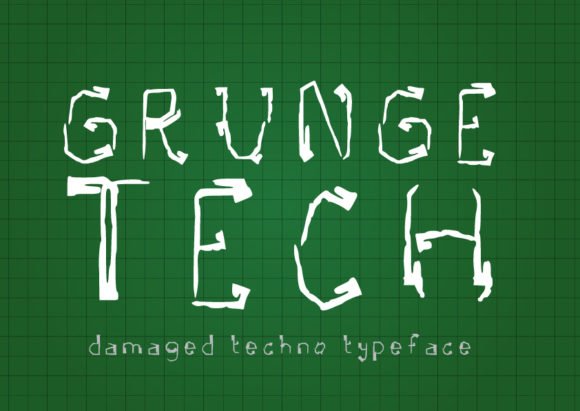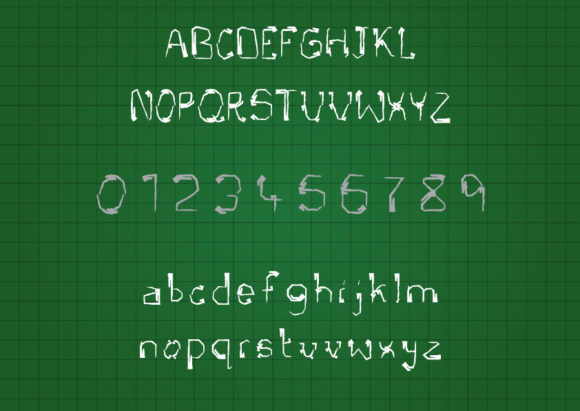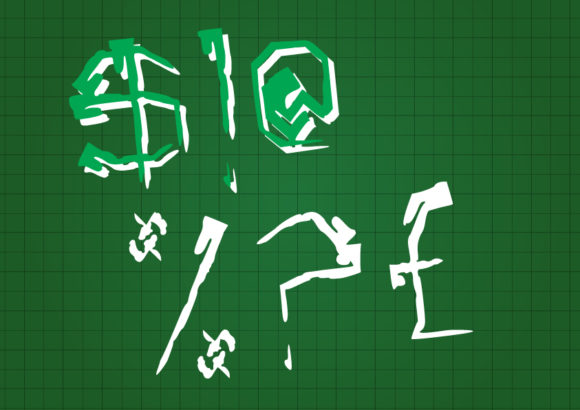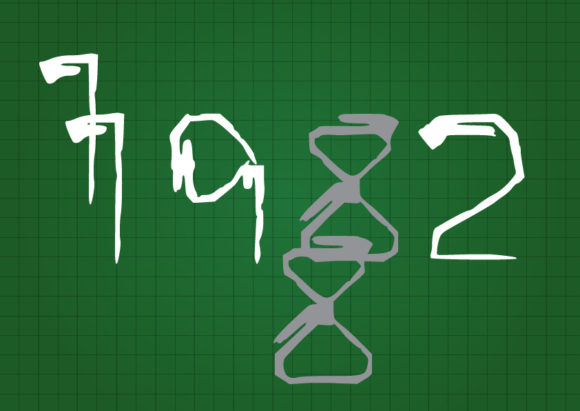
Get Ready to Blast Off into the Future with Grunge Tech Font
Have you ever been working on a project, pouring your heart and soul into it, and suddenly a spark of inspiration hits you? That’s exactly what happened when I stumbled upon Grunge Tech Font. I was designing a futuristic sci-fi poster and needed a font that would transport my audience to a world beyond our own.
Grunge Tech Font is a display font that embodies the essence of a dystopian cyberpunk universe. Its rugged, distressed design makes it perfect for any project that requires a sci-fi look. As a designer, you’ll appreciate the versatility and edginess of this font, which can add a touch of rebellion and nonconformity to your work.
Grunge Tech Font Key Features
- Font Family: Grunge Tech Font is a unique, distressed font designed to evoke a retro, industrial feel.
- Character Set: Includes a wide range of characters, including Latin, Cyrillic, and Greek alphabets, as well as punctuation and symbols.
- Unique Characteristics: Distressed texture, worn edges, and subtle noise effects give Grunge Tech Font a rugged, industrial aesthetic.
Grunge Tech Font Review
Overall, I think Grunge Tech Font is a great addition to any designer’s toolkit. Here are a few things that work well:
- ✨ Unique aesthetic: Grunge Tech Font has a distinct, edgy feel that’s perfect for tech, gaming, and music-related projects.
- ✨ Wide character set: The font includes a wide range of characters, including special symbols and ligatures, which is great for designers who want to add some extra flair to their work.
- ✨ Highly customizable: Grunge Tech Font is available in a range of weights and styles, making it easy to find the perfect fit for your project.
That being said, there are a few limitations to keep in mind:
- ⚠️ Limited legibility: While Grunge Tech Font is great for headings and titles, it can be difficult to read at smaller sizes, which may limit its use for body text.
- ⚠️ Not suitable for formal projects: The font’s grungy aesthetic may not be suitable for formal or professional projects, where a more traditional font is preferred.
Overall, I think Grunge Tech Font is a great choice for designers who want to add some edge to their work. Just be aware of its limitations and use it judiciously to get the best results.
The Grunge Tech Font is ideal for:
- Tech-related projects, such as blog posts or product designs.
- Music-related projects, such as album art or concert posters.
- Industrial or manufacturing-related projects, such as product labels or signage.